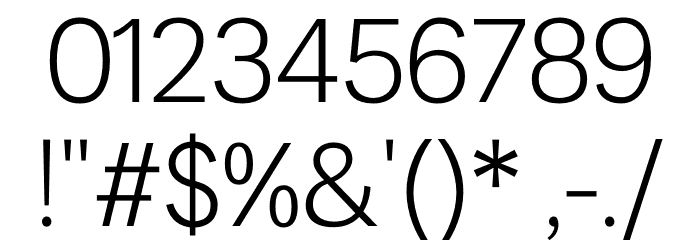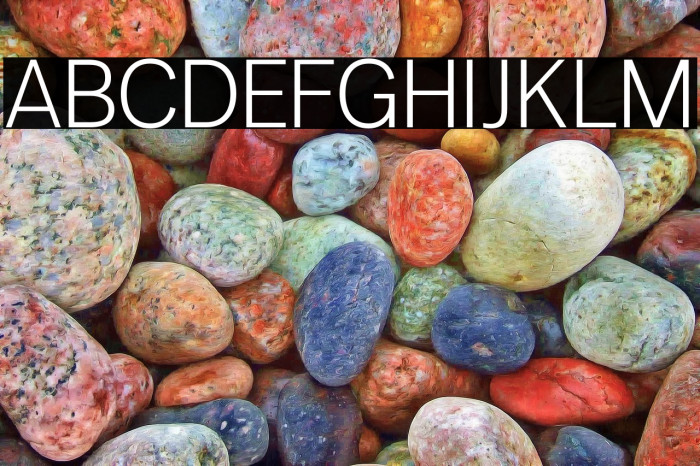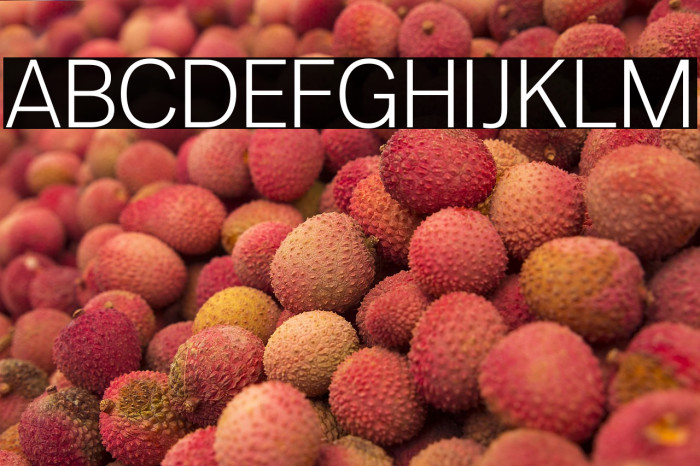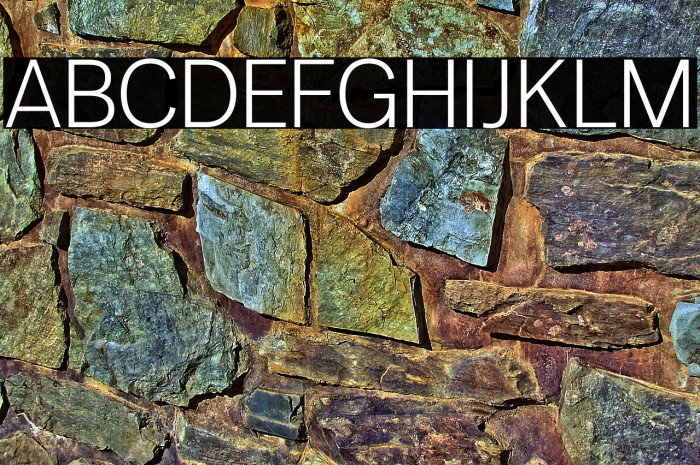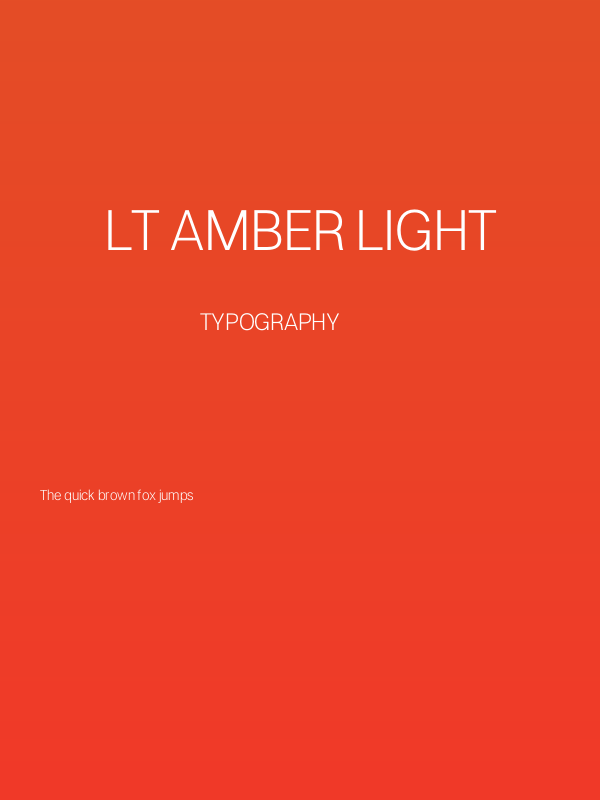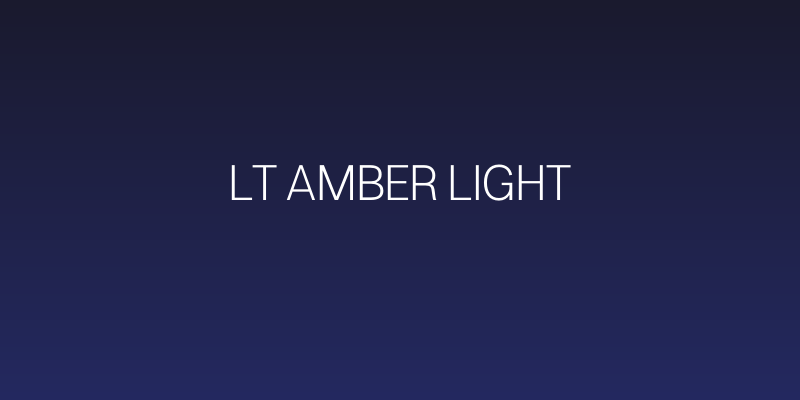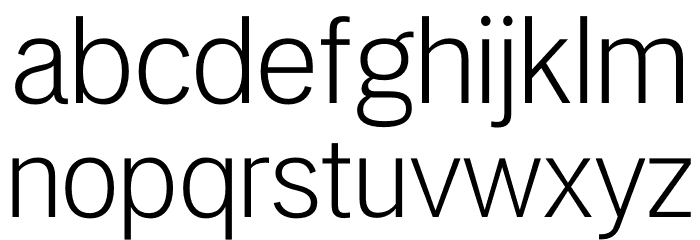
LT Amber Light Font
LT Amber Light Description
This font features a clean and modern sans-serif style with a light weight, making it ideal for a variety of design applications. The characters are well-proportioned with a consistent stroke width, contributing to its legibility and versatility. The uppercase and lowercase letters maintain a harmonious balance, while the numerals and special characters are designed to complement the overall aesthetic. The font's simplicity and clarity make it suitable for both digital and print media, providing a professional and contemporary look.
| Proposed Projects | Ideal for branding, web design, editorial layouts, and corporate communications. |